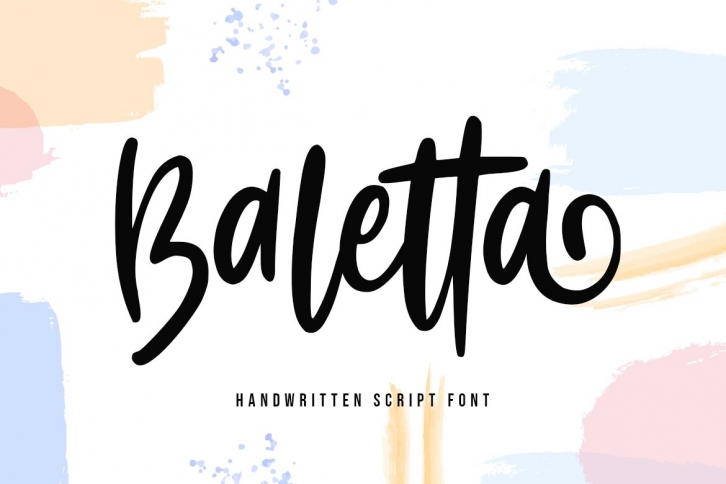
Introducing Baletta Handwritten Font
This font inspired from natural handwritten script, that look fancy and cute, this font suitable for holiday card, invitation, logo and others design purpose